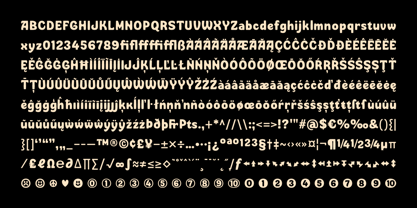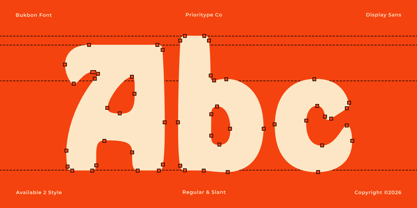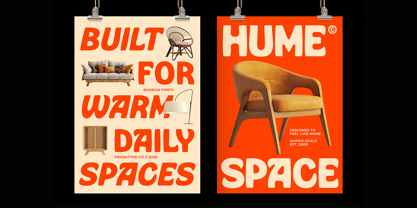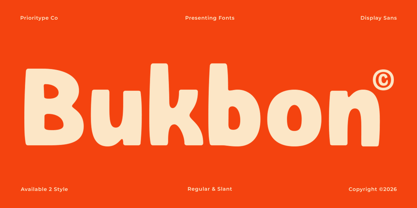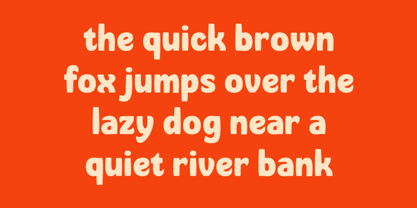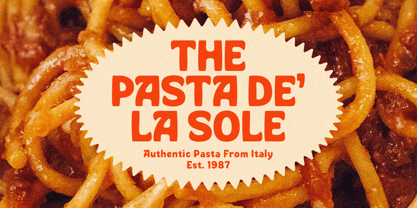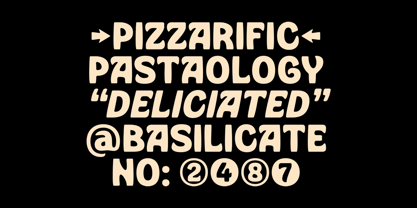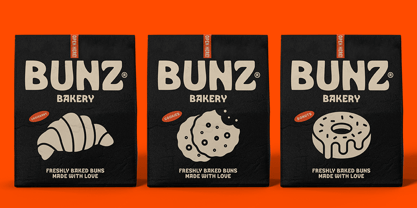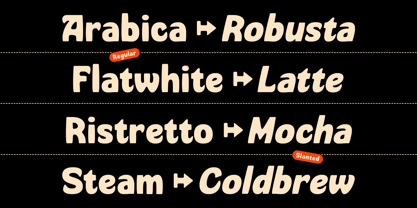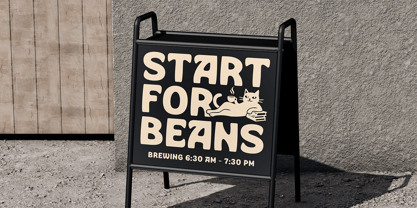
Bukbon
by Prioritype
Bukbon is a bold and playful display font featuring soft, rounded letterforms and a cheerful, friendly personality. Its thick strokes and smooth curves create a warm and expressive visual tone. This font is ideal for branding, logos, packaging, posters, children’s projects, and social media designs that need a fun, eye-catching, and approachable style. Thank you for choosing Prioritype Co.
Designers: Prio Nurokhim Aji
Foundry: Prioritype